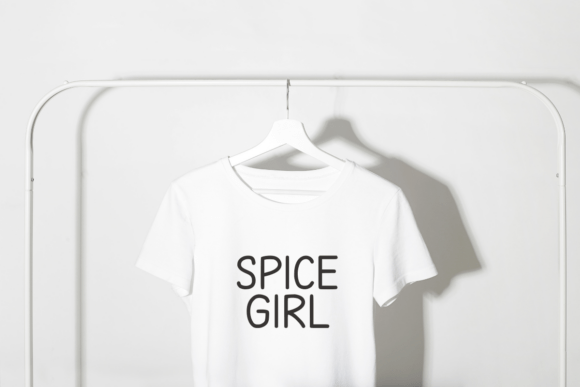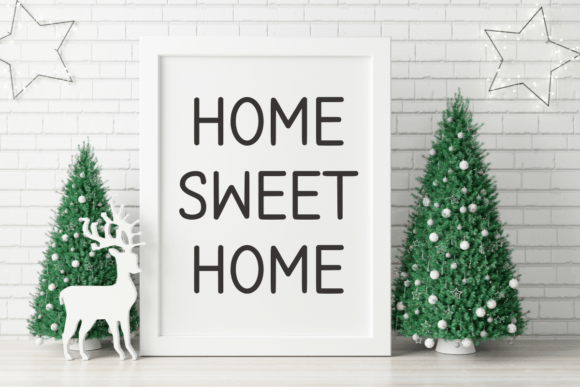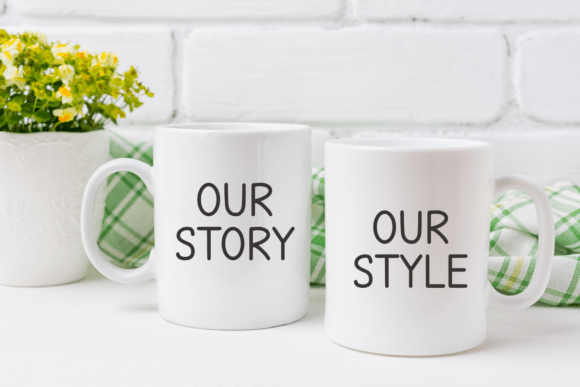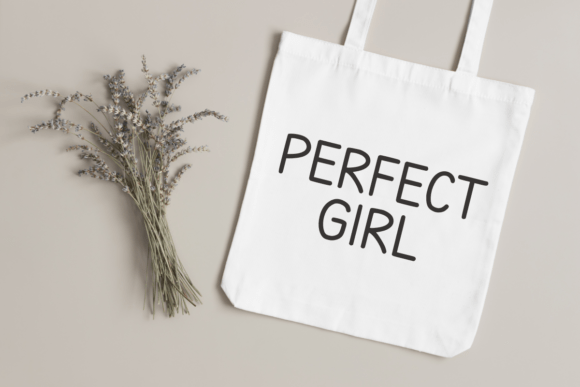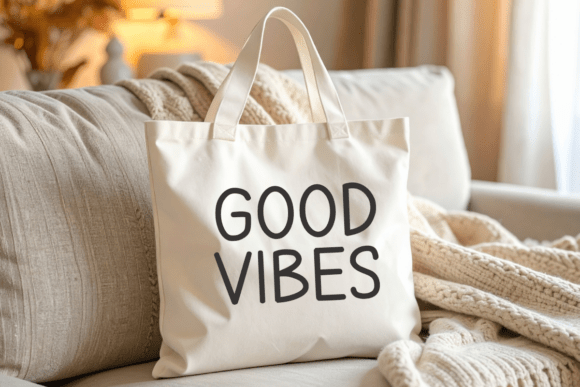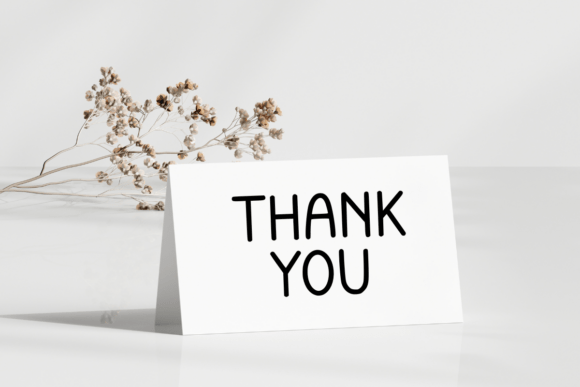
Candle Light Font: The Perfect Handwriting Display Sans-Serif for Your Design Projects
Are you looking for a font that can add a personal touch to your design projects? Do you want to create a sense of coziness and warmth in your designs? Look no further than the Candle Light font, a delightfully charming handwriting display sans-serif font that brings an authentic, casual, and incredibly cute aesthetic to any design project.
What Makes Candle Light Font So Special?
The Candle Light font features soft, rounded edges and an endearing, slightly irregular baseline that mimics genuine penmanship, making it feel genuinely handmade and approachable. Its clear, legible letterforms maintain a friendly presence even at smaller sizes, ensuring your message is conveyed with ease and warmth. This warm and inviting font is perfect for adding a personal touch to your designs, making it ideal for projects where you want to connect with your audience on a personal level.
The Candle Light typeface excels in creating a sense of coziness and heartfelt communication, making it perfect for a variety of design projects, including:
- Greeting Cards: Add a personal touch to your greeting cards with the Candle Light font, making them feel more special and heartfelt.
- Social Media Posts: Create engaging social media posts that connect with your audience on a personal level, using the Candle Light font’s friendly and approachable style.
- Children’s Book Titles: Create captivating children’s book titles that are both fun and inviting, using the Candle Light font’s playful and charming aesthetic.
- DIY Projects: Personalize your DIY projects, such as handmade crafts or home decor, with the Candle Light font, adding a touch of warmth and coziness.
Why Choose Candle Light Font?
There are many reasons why you should choose the Candle Light font for your design projects. Here are just a few:
- Unique and Authentic: The Candle Light font features a unique and authentic handwriting style that sets it apart from other fonts.
- Easy to Read: The font’s clear and legible letterforms make it easy to read, even at smaller sizes.
- Versatile: The Candle Light font is versatile and can be used for a variety of design projects, from greeting cards to social media posts.
- Cute and Charming: The font’s soft, rounded edges and endearing baseline make it incredibly cute and charming, adding a touch of warmth and coziness to your designs.
Tips for Using Candle Light Font
Here are a few tips for using the Candle Light font in your design projects:
- Pair with Other Fonts: Pair the Candle Light font with other fonts to create a unique and interesting contrast.
- Use for Headings: Use the Candle Light font for headings and titles to add a touch of warmth and coziness to your designs.
- Experiment with Colors: Experiment with different colors to find the perfect combination that complements the Candle Light font.
In conclusion, the Candle Light font is a delightfully charming handwriting display sans-serif font that brings an authentic, casual, and incredibly cute aesthetic to any design project. Its soft, rounded edges and endearing baseline make it perfect for adding a personal touch to your designs, making it ideal for projects where you want to connect with your audience on a personal level. With its natural flow and uncomplicated charm, the Candle Light font is the perfect choice for designers and crafters looking to add a touch of warmth and coziness to their designs.
Whether you’re designing adorable greeting cards, crafting engaging social media posts, creating captivating children’s book titles, or personalizing DIY projects, the Candle Light font is your go-to choice. So why wait? Try the Candle Light font today and see the difference it can make in your design projects!